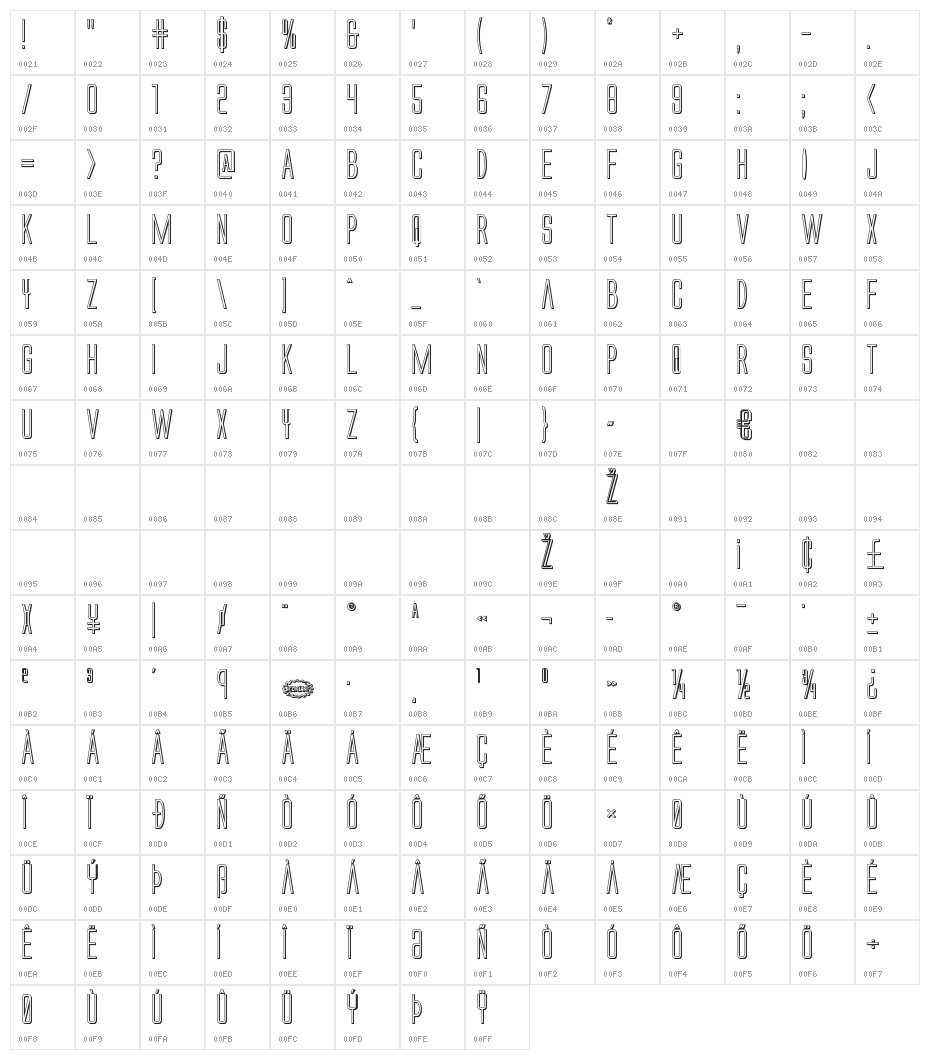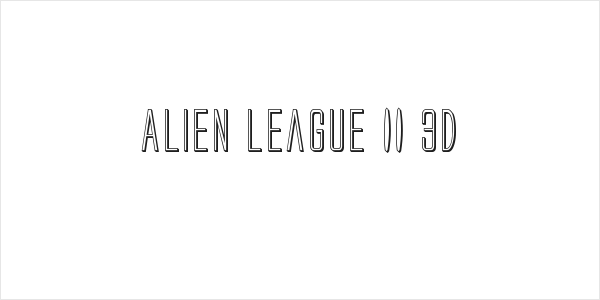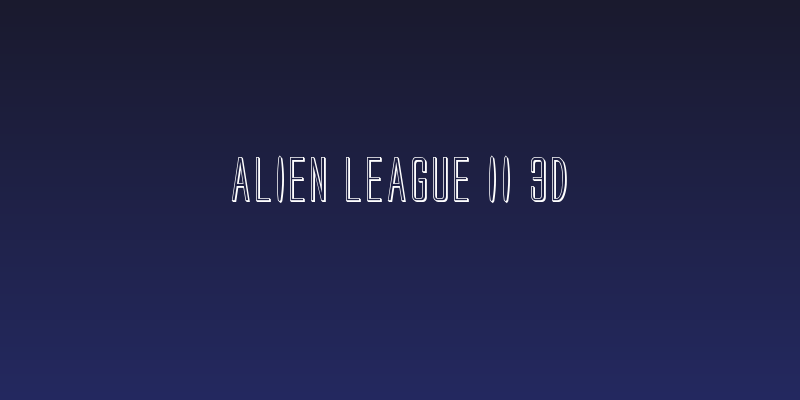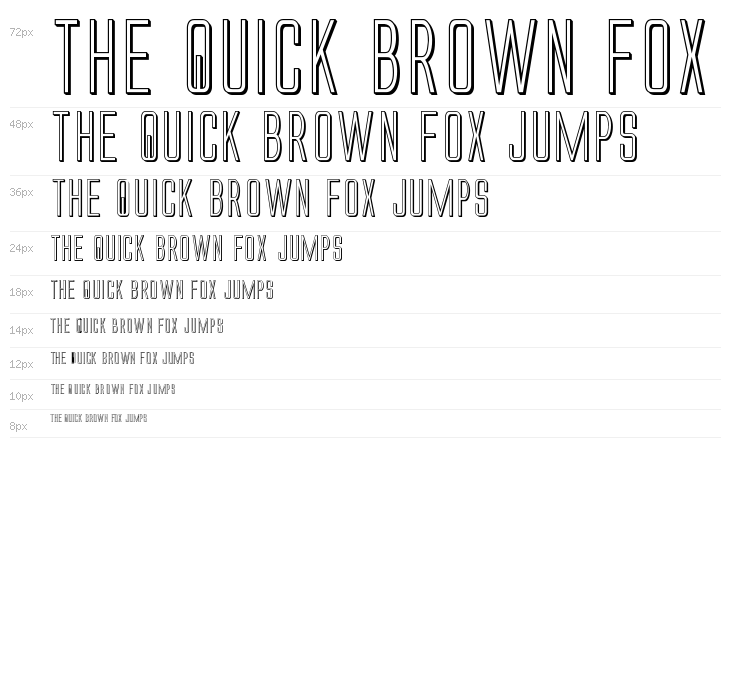
Alien League II 3D Font
Alien League II 3D Description
This font features a futuristic and geometric design with a three-dimensional effect. The characters are outlined, giving them a hollow appearance that enhances their modern and sleek style. The uppercase letters are tall and narrow, while the lowercase letters maintain a consistent height, contributing to a uniform look. The numerals and special characters follow the same design principles, ensuring cohesion across all elements. The font's distinct style makes it suitable for projects that require a contemporary and eye-catching typeface.
| Proposed Projects | Ideal for sci-fi themed posters, video game titles, technology branding, and modern advertising campaigns. |